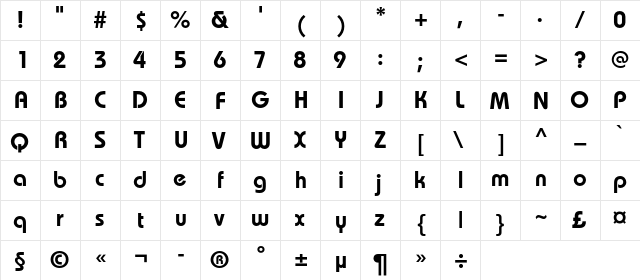
BauhausC Demibold Regular Font Preview
BauhausC Demibold Regular
BauhausC Demibold Regular Font Details
Design Context for BauhausC Demibold Typeface
BauhausC Demibold takes a measured approach to typography — its balanced proportions and neutral character make it a reliable workhorse for both digital and print work. The heavy weight commands attention and anchors typographic hierarchies.